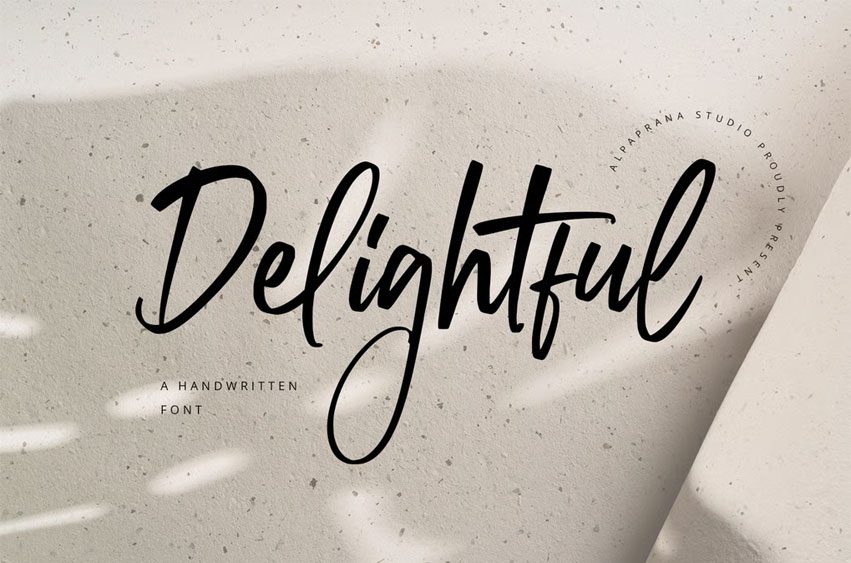
Delightful Font is a handwritten font with a natural and modern feel. This font is well-suited for a variety of contexts, such as print design, promotional materials, or magazine layouts.
- Uppercase & Lowercase
- Numerals
- Punctuations (OpenType Standard)
- Accents (Multilingual Characters)
- Ligatures and Alternative Style Stylistic Set